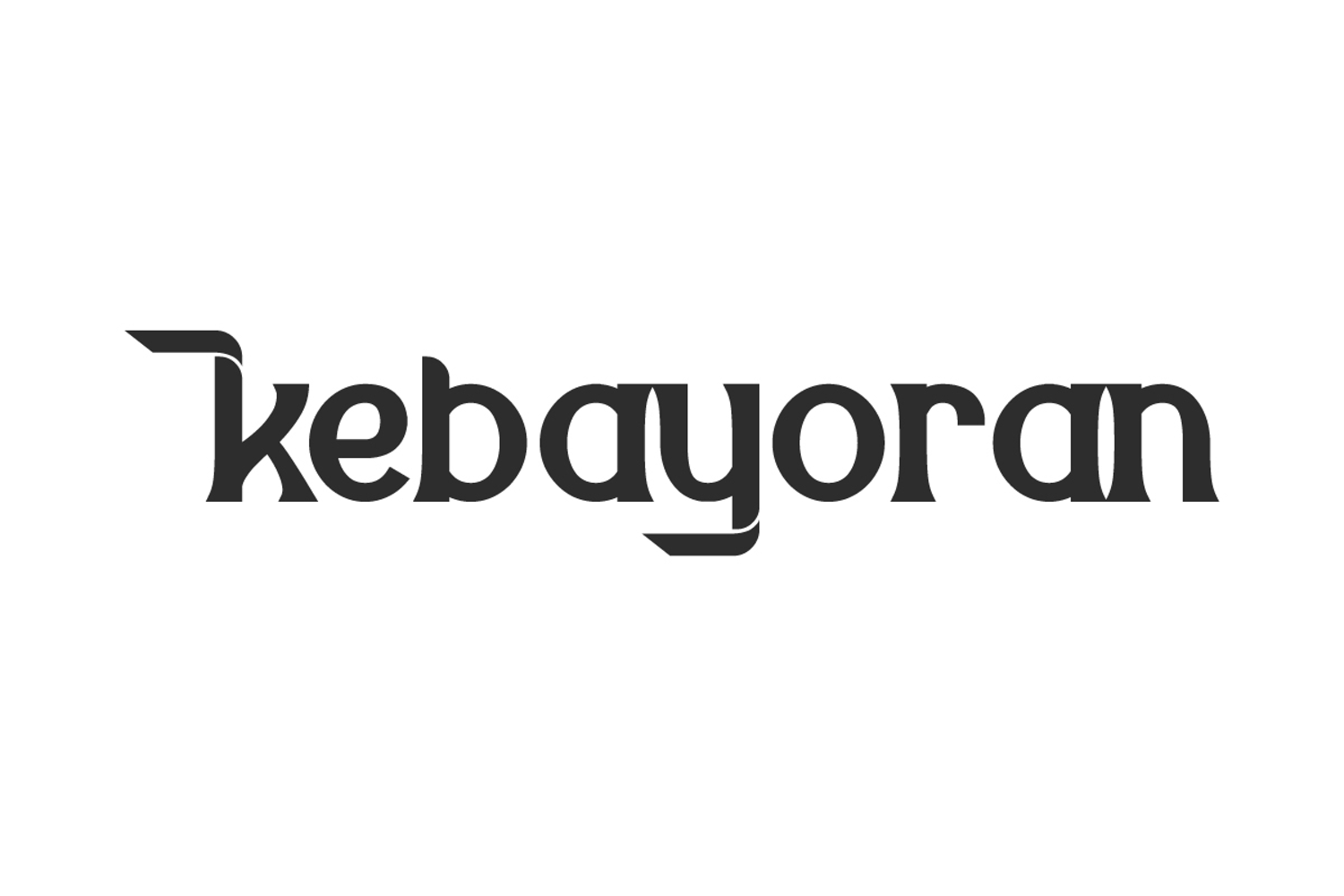
Kebayoran Font
Kebayoran Font is an elegant display font with a classic touch, its distinctive letterforms with balanced curves and consistency make it ideal for a variety of creative projects, suitable for advertisement board, headlines, logos, magazines, screen print t-shirt, signage, sticker, or anything else. This font includes selected ligatures to enhance its aesthetic appeal.
Kebayoran Font includes full set of Uppercase and Lowercase Basic Characters, Numbers, Punctuation, Symbols and Ligature. Take your typography to the next level with this classic yet modern style sans serif font. Allows for an authentic approach to lettering as well as a unique font appearance. This font is made perfect for apparel, cafes, clothing brand, graphic design, kitchen furniture, photography, restaurants, etc.